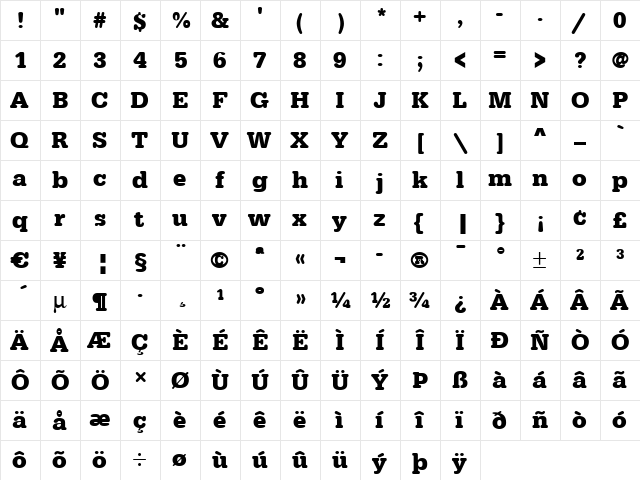
AstridBecker Bold Font Preview
AstridBecker Bold
AstridBecker Bold Font Details
Design Context for AstridBecker Typeface
AstridBecker is a composed and adaptable typeface that performs quietly and consistently across a wide range of design contexts. Its bold stroke weight gives it real presence on the page.